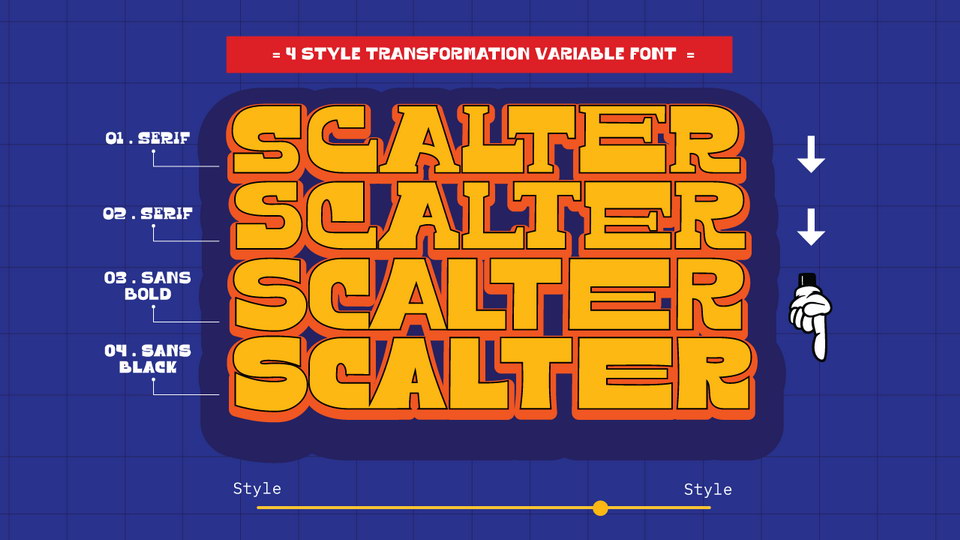
Scalter Serif Font
Scalter is a display serif typeface inspired by the characteristics American vintage sign then the sans serif it’s combination retro typeface. All shape of this typeface is make strong and more contrast, giving a more dynamic and retro feel.
Free version of Scalter includes Condensed and Condensed Slanted styles, the full version contains 42 fonts in 5 widths and 4 styles.